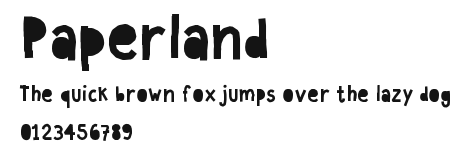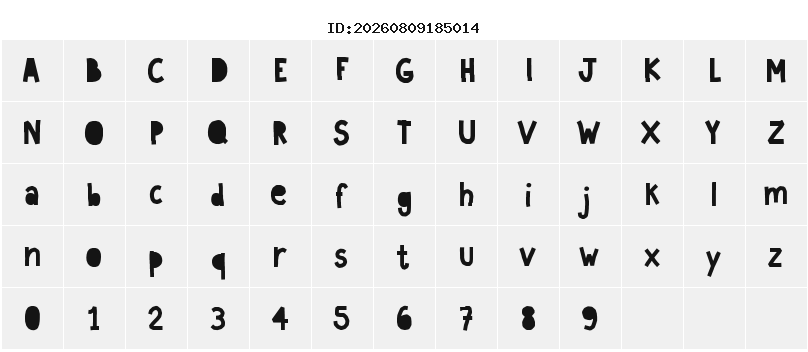
• Font Name: Paperland
About Paperland.ttf
Paperland.ttf is a modern, elegant sans-serif font designed for ultimate readability and visual harmony. Perfect for branding, headlines, web design, and print materials.